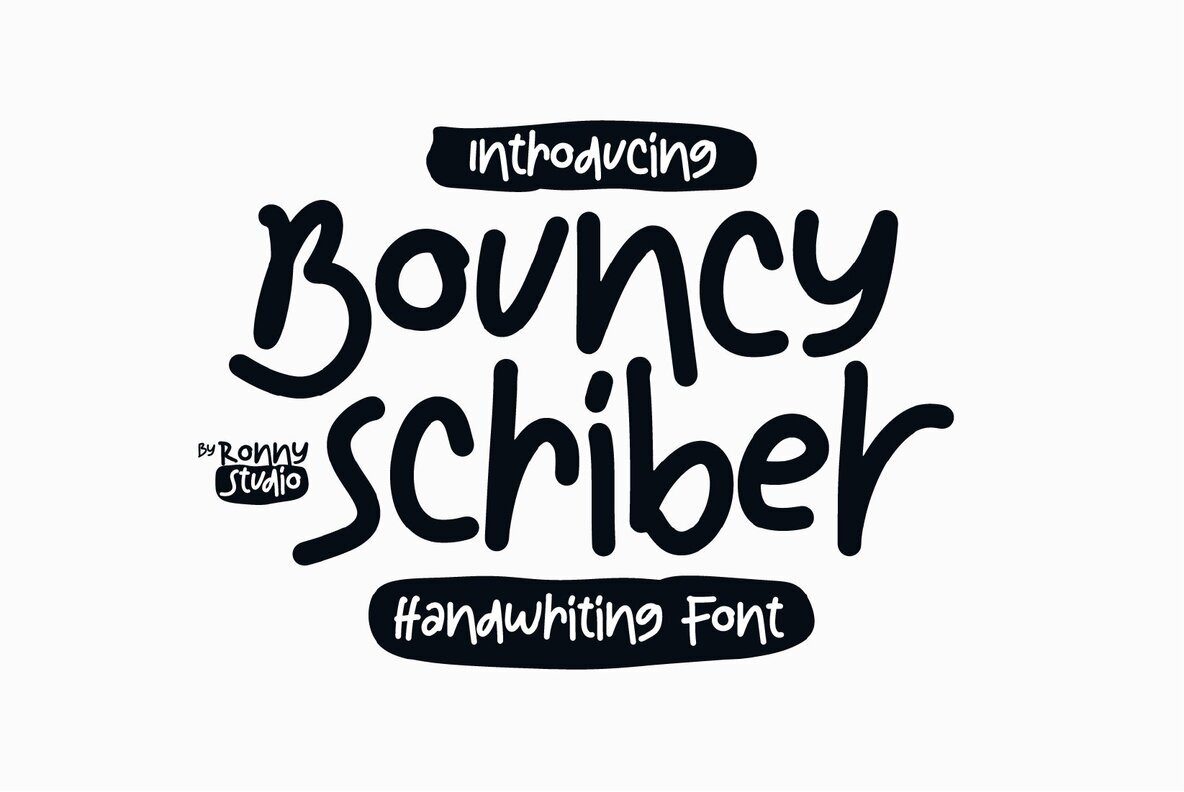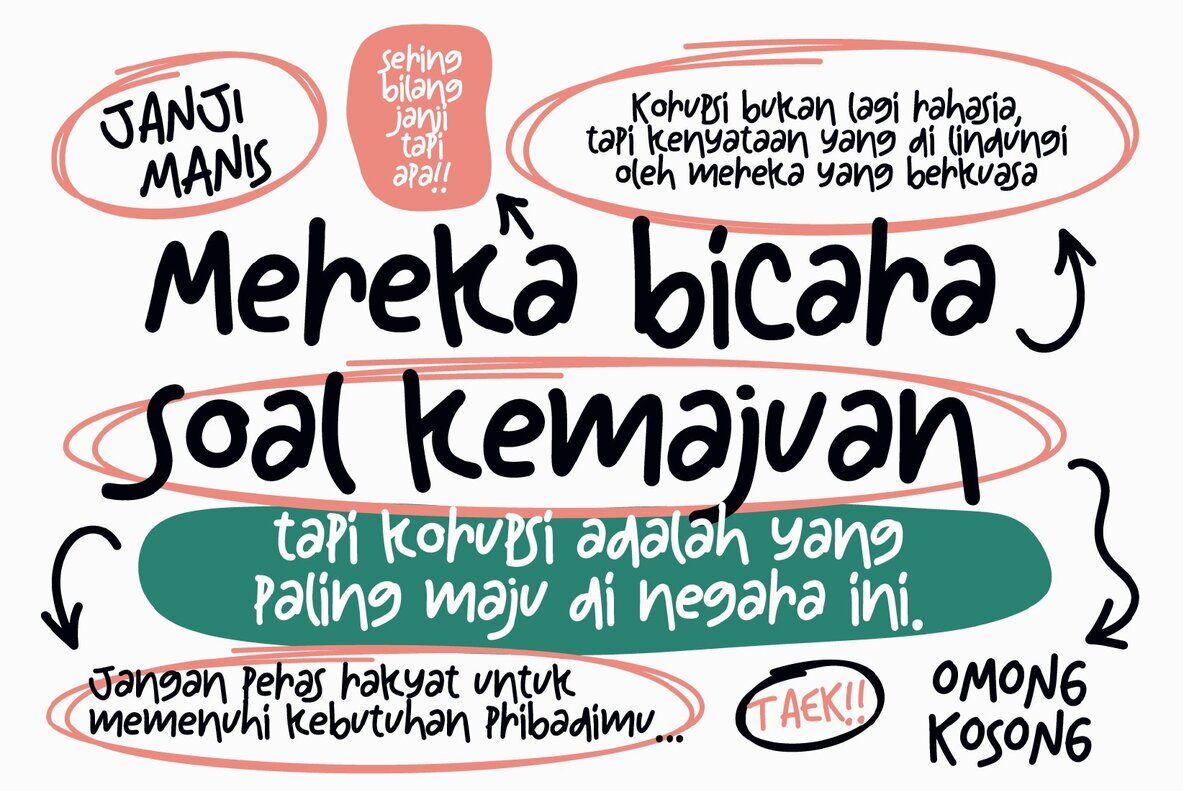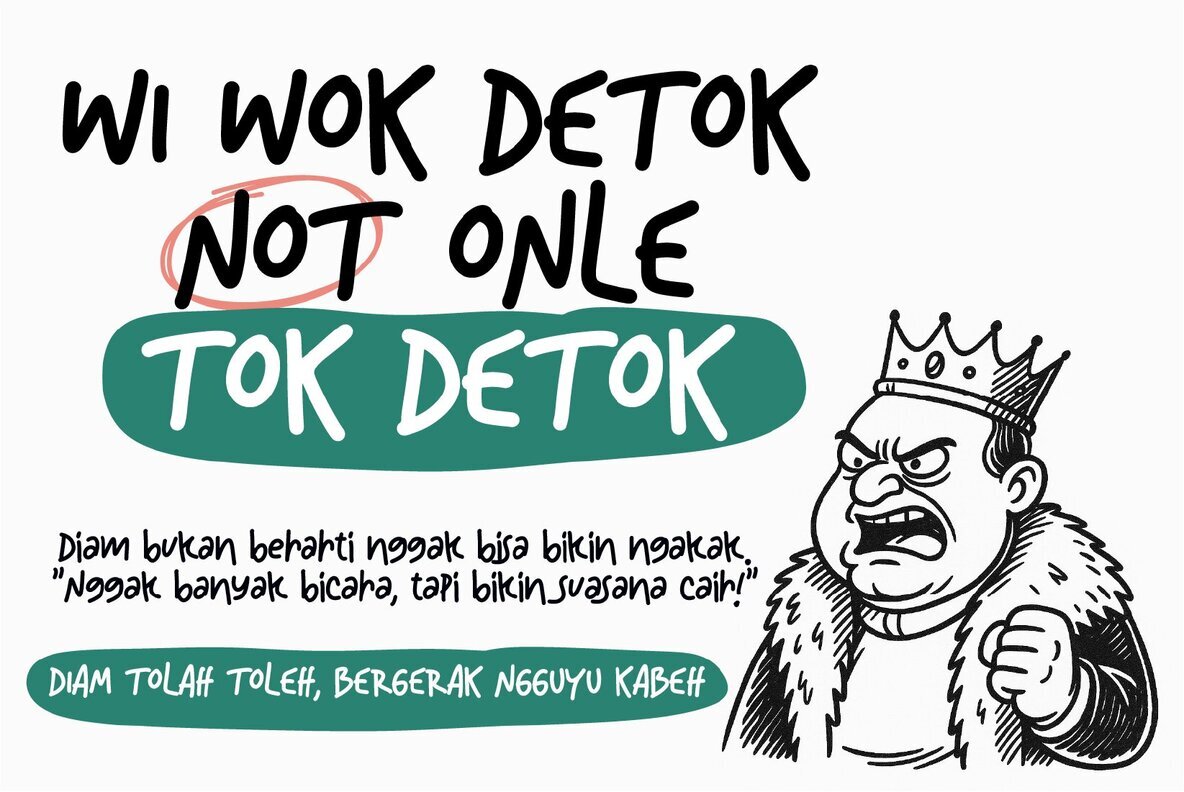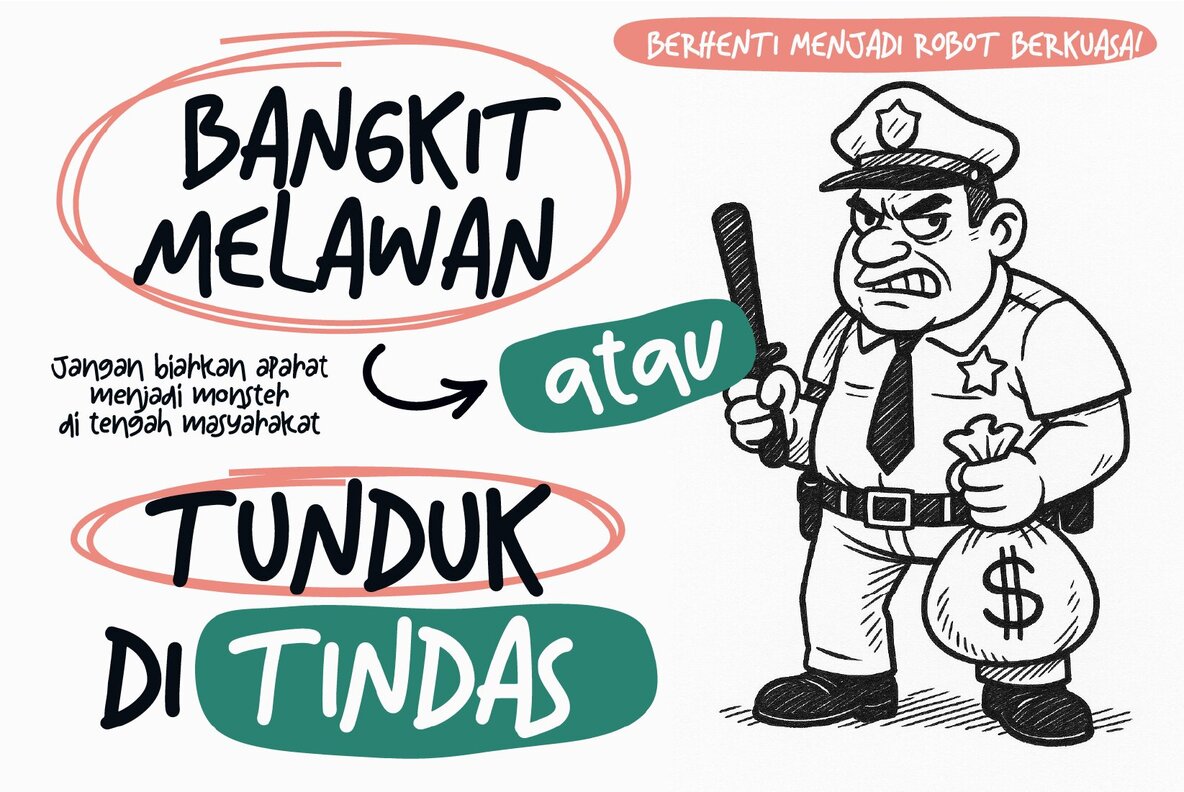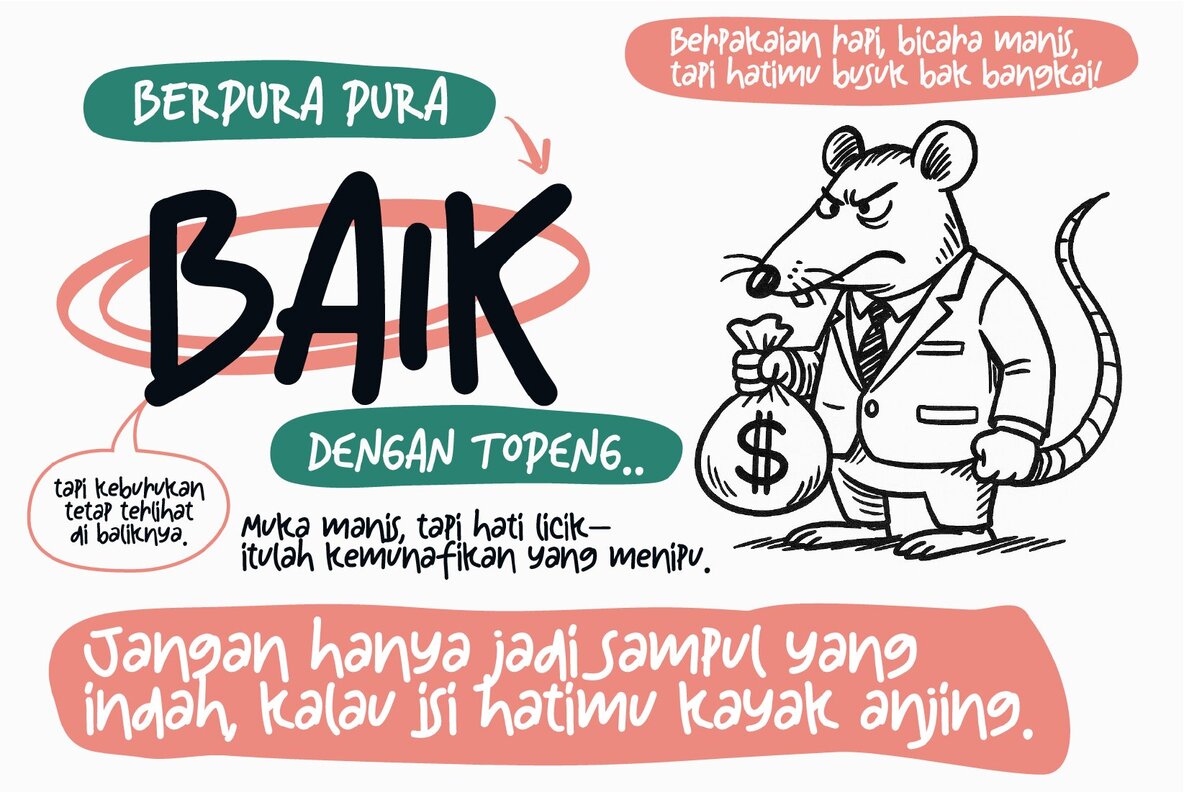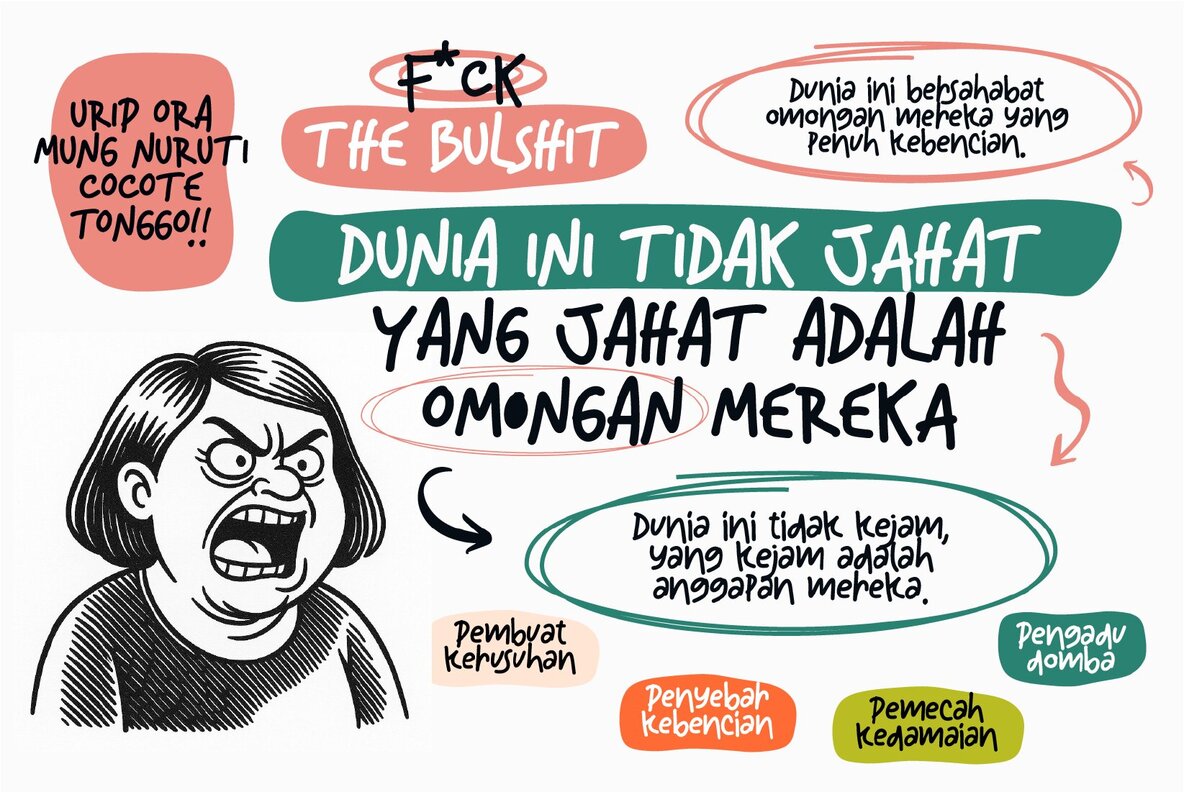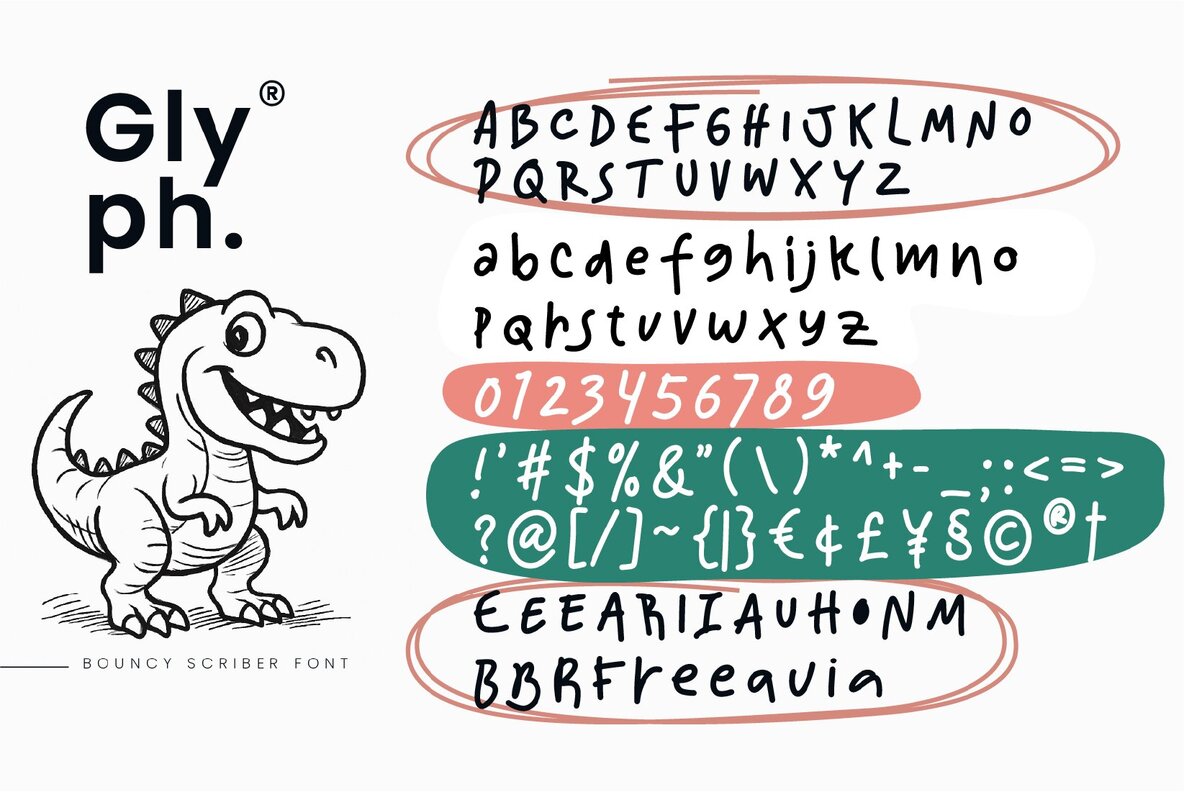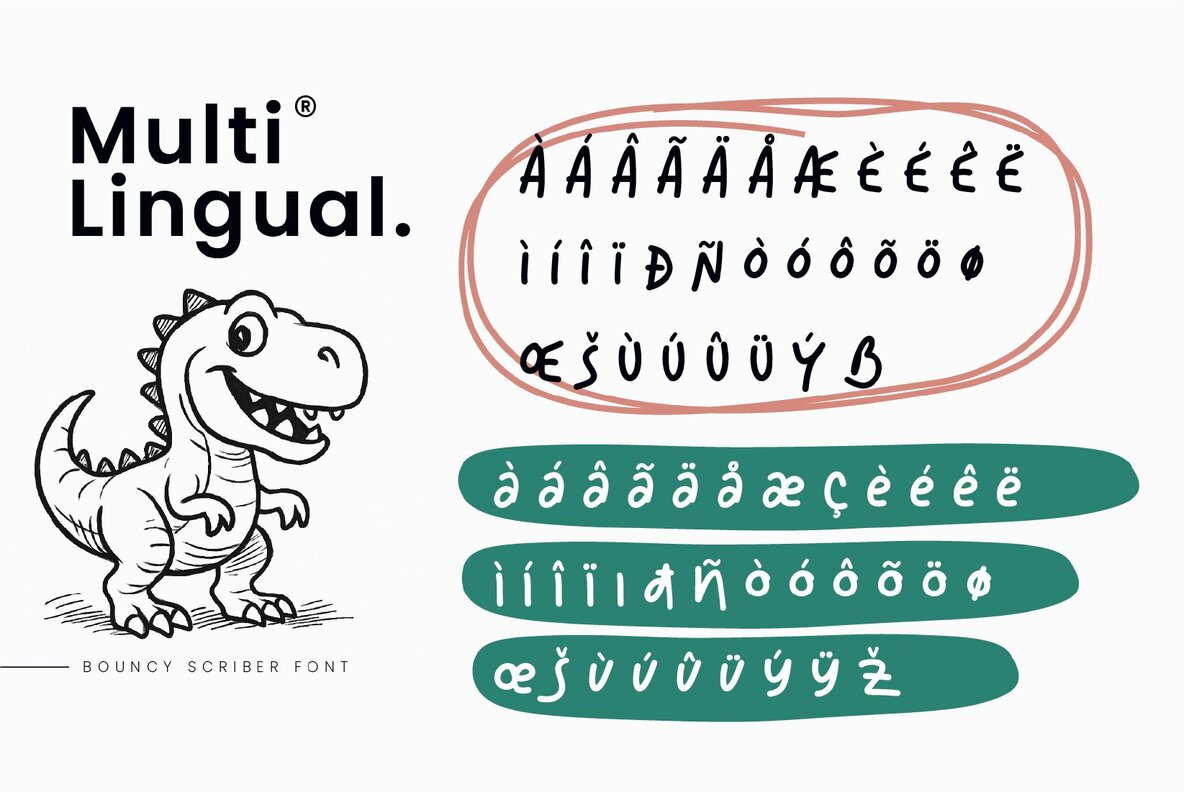
Bouncy Scriber Font
Bouncy Scriber infuses fun and casual flair into your design projects. This unique handwritten font is ideal for posters, merchandise, branding, social media, and other creative work, bringing a vibrant energy to your typography. Its flowing style and distinct characters ensure your designs are lively and memorable.Bouncy Scriber: A Playful Handwritten Font
Let your designs express creativity and joy with Bouncy Scriber, adding a unique character to every project.